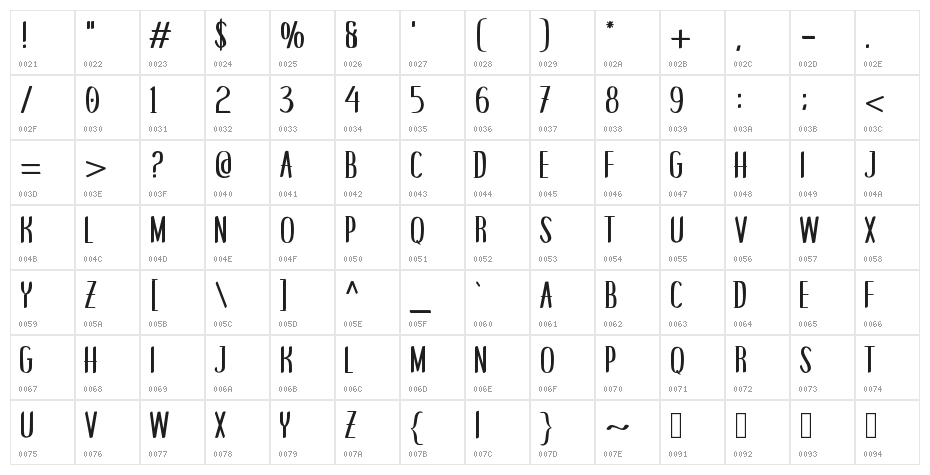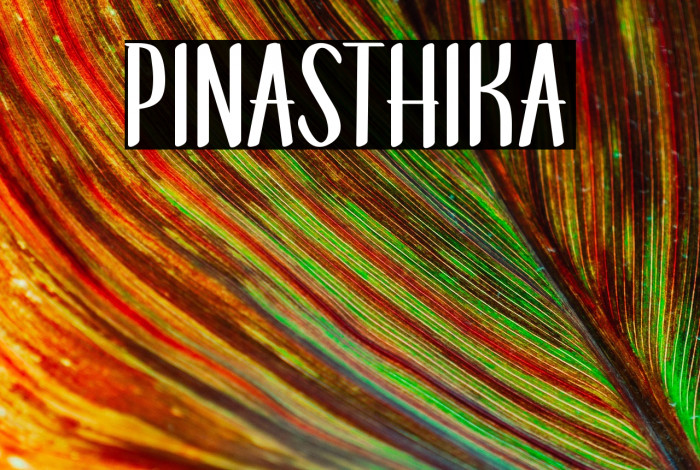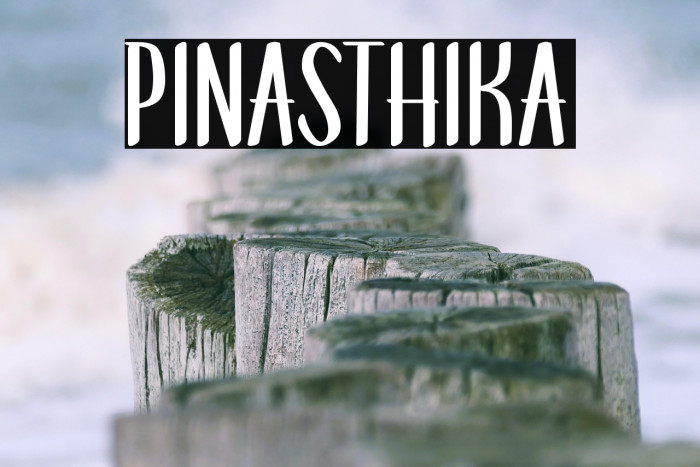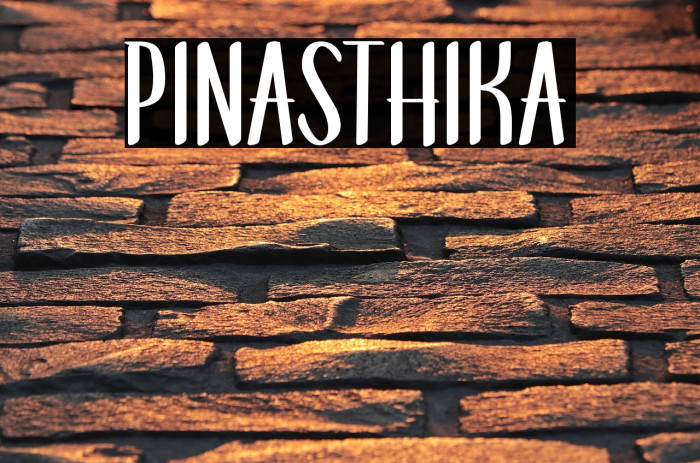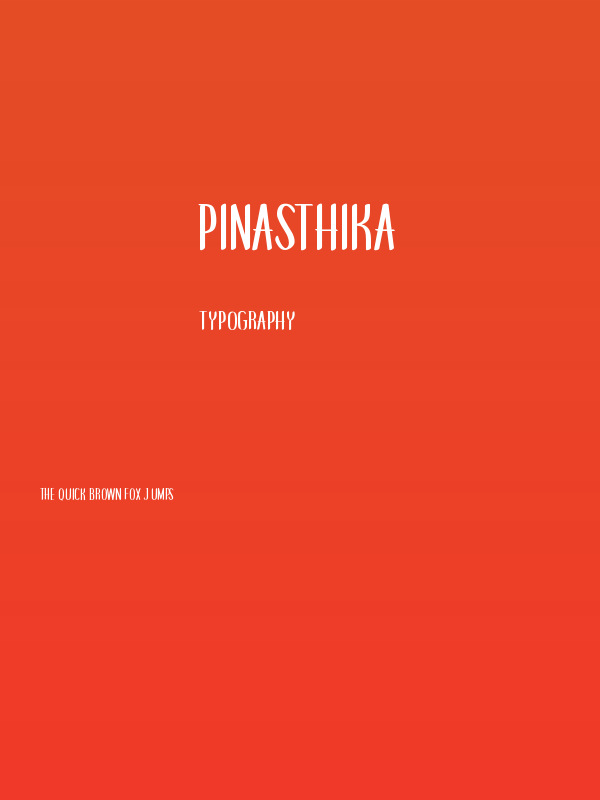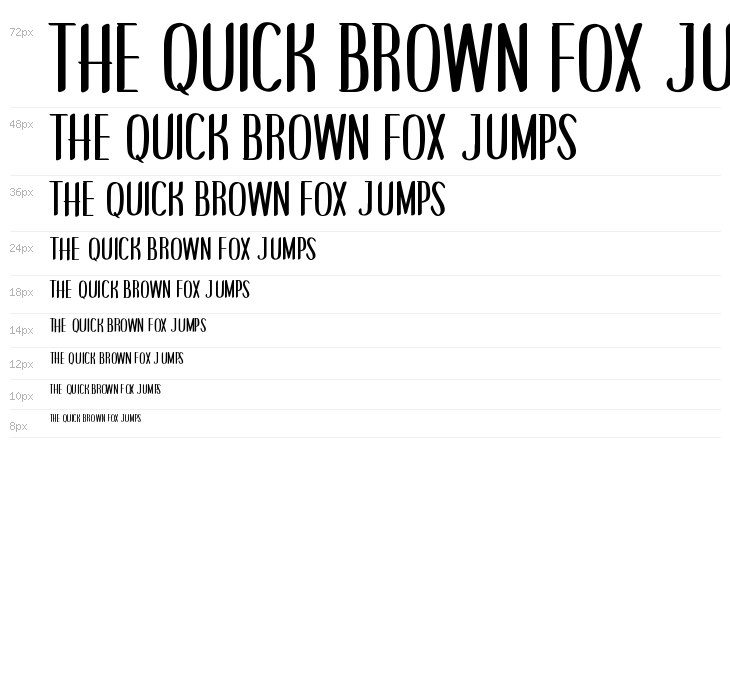
Pinasthika Font
Pinasthika Description
This font features a playful and artistic style with elongated and slightly curved letterforms. The uppercase letters are tall and narrow, giving a sense of elegance and modernity. The lowercase letters maintain a consistent style, complementing the uppercase with a slightly more relaxed appearance. The numerals are distinct and easy to read, matching the overall aesthetic of the font. Special characters are creatively designed, adding to the font's unique personality. The font's design is suitable for projects that require a touch of creativity and flair, making it ideal for artistic and modern applications.